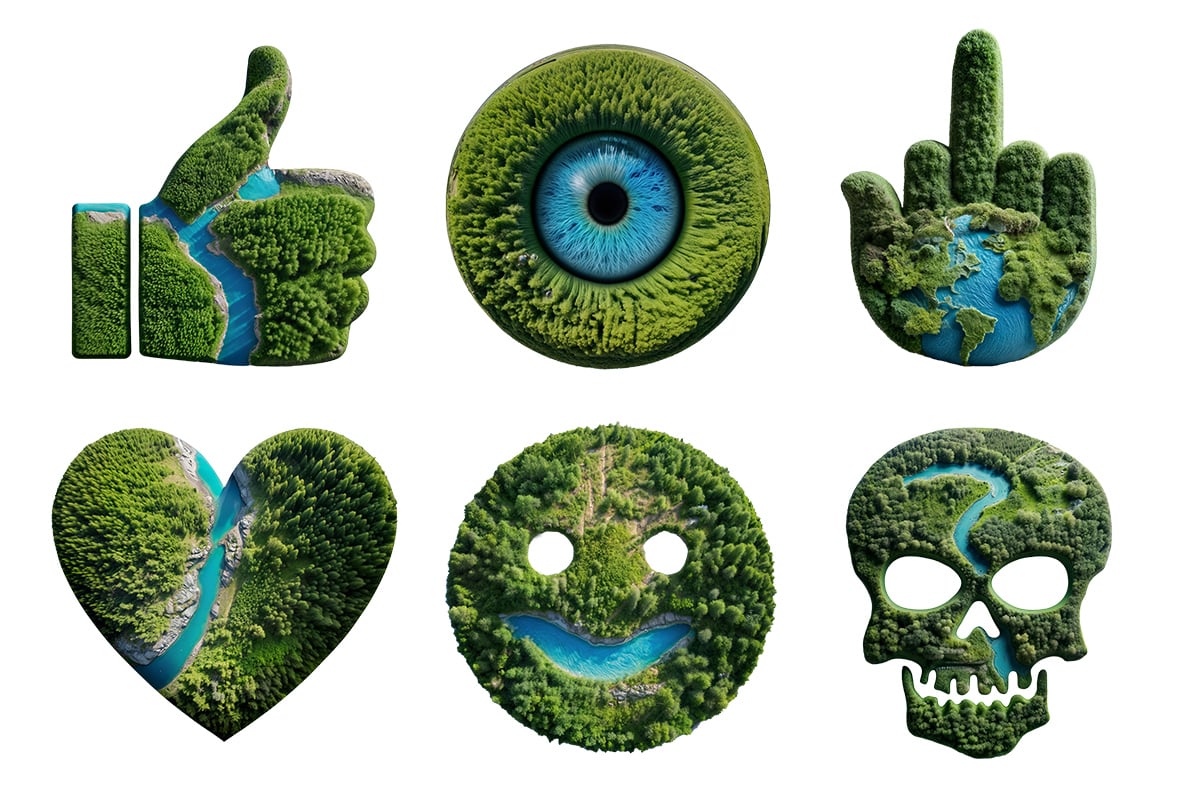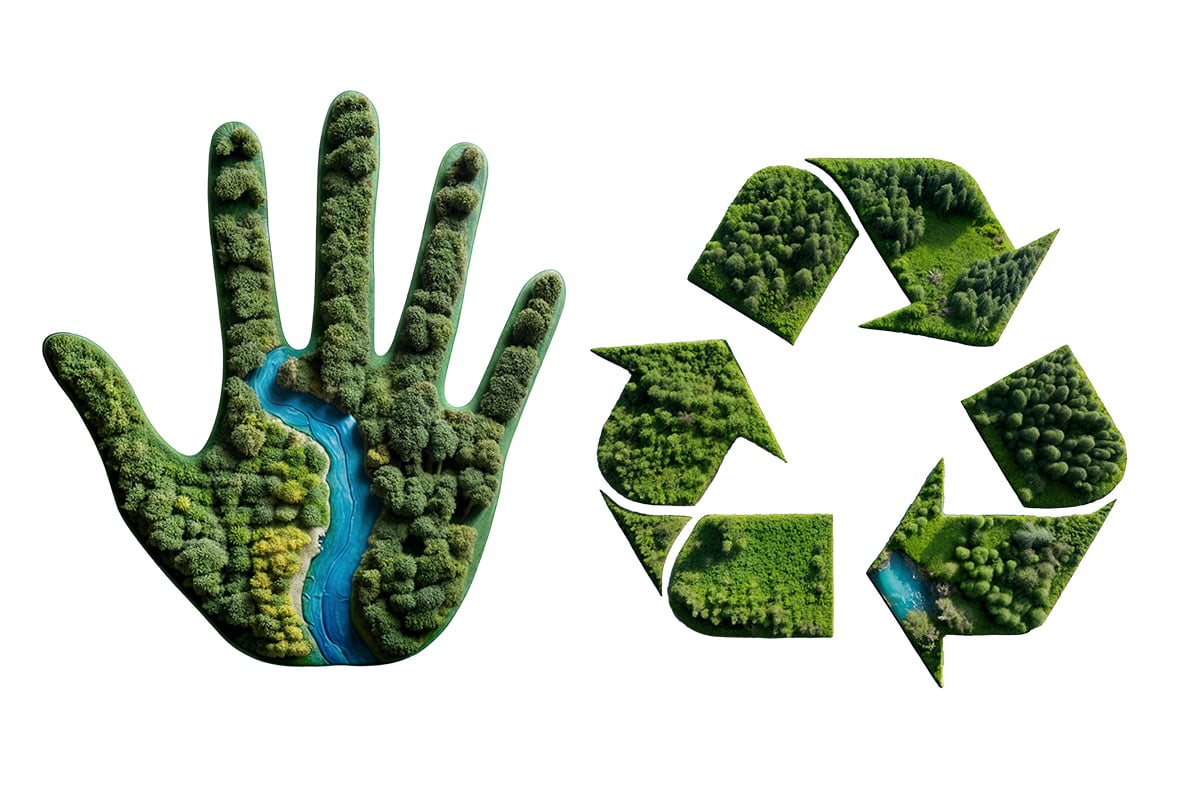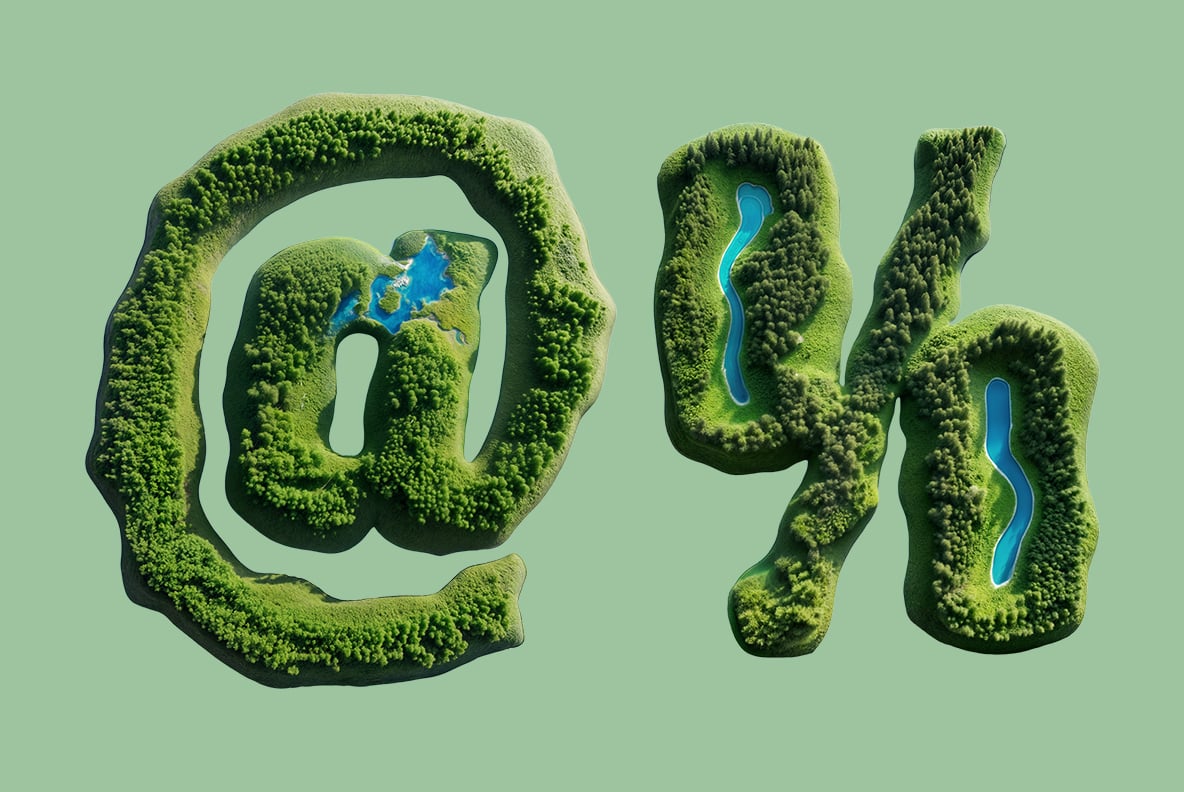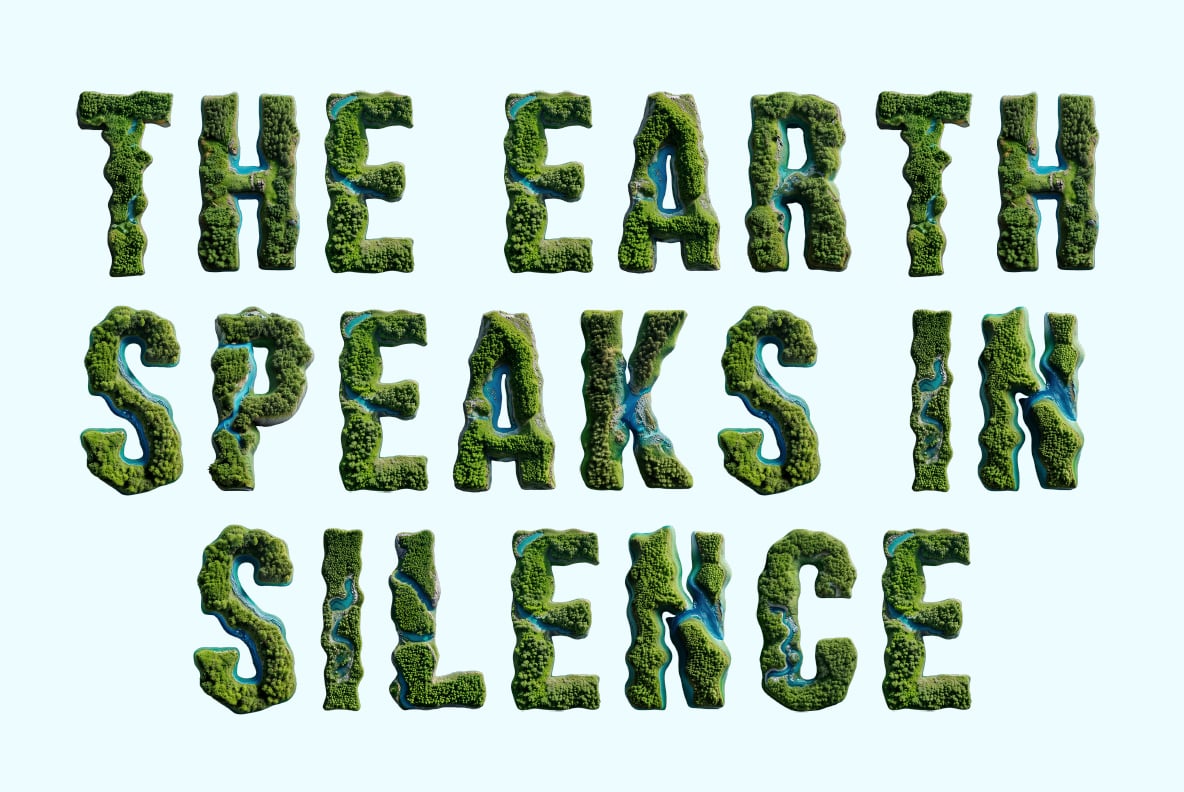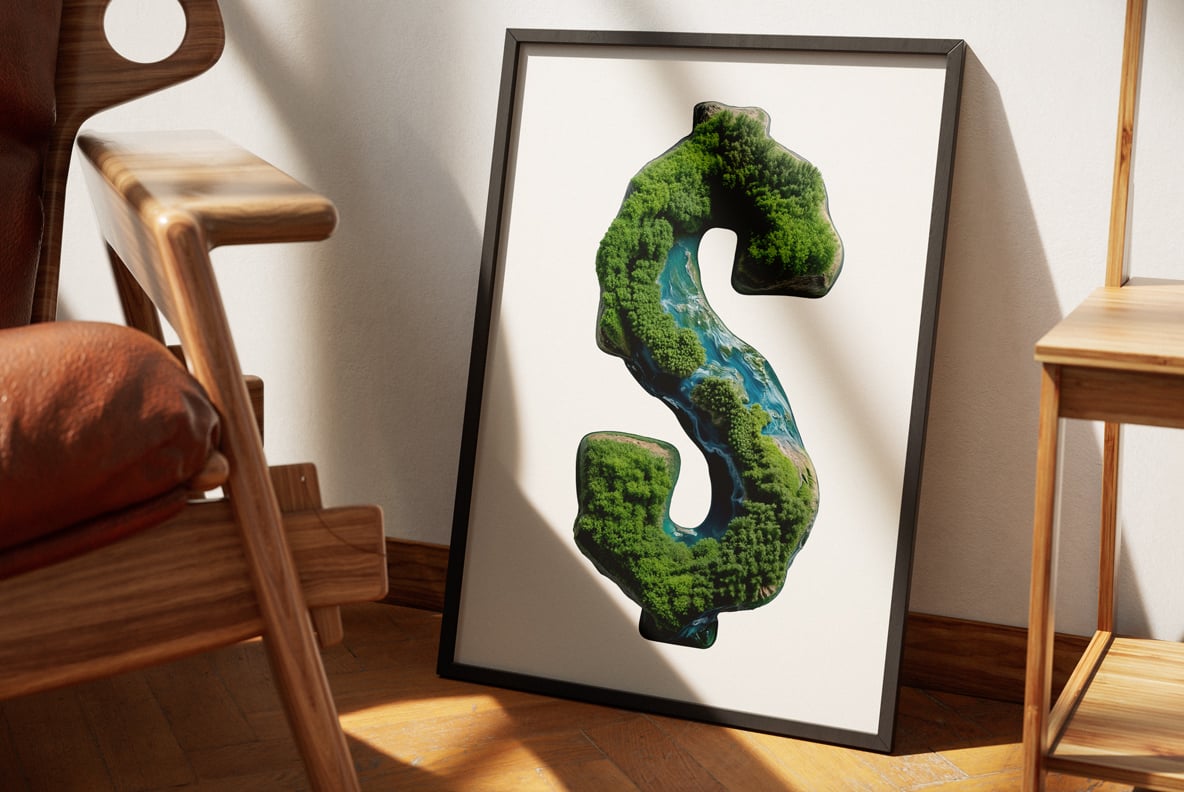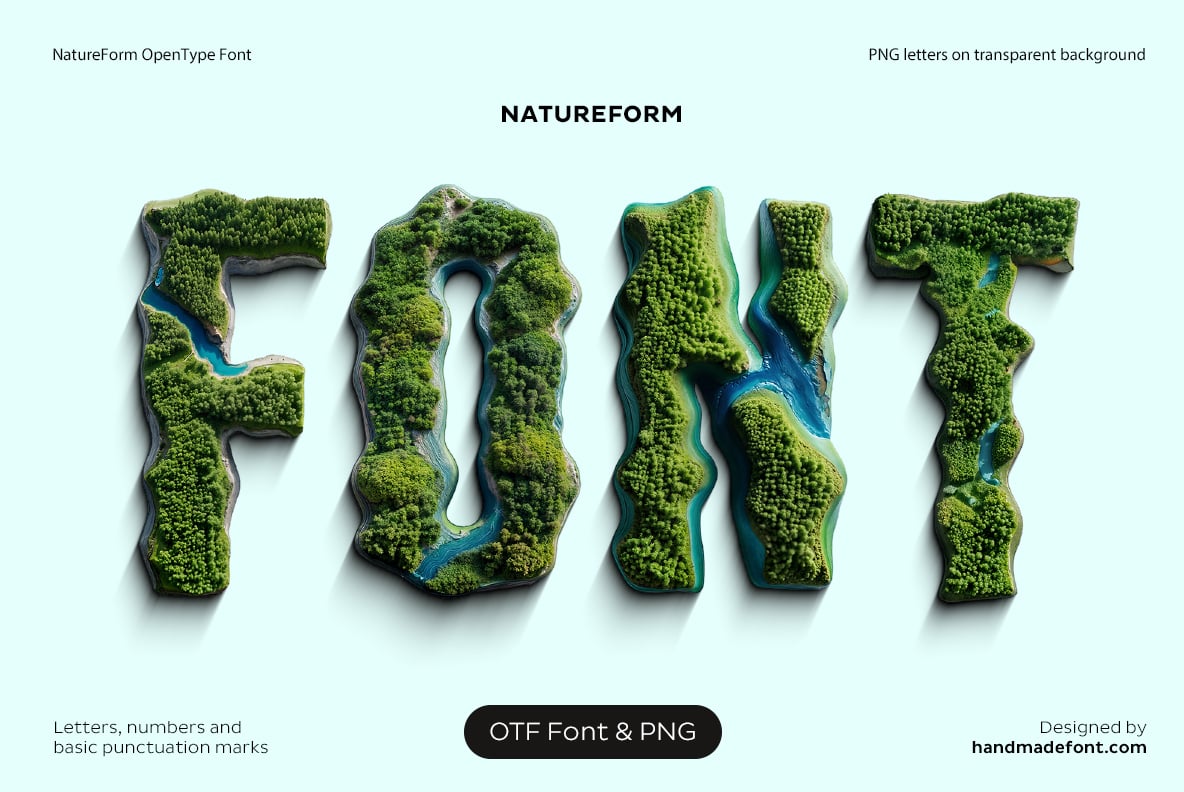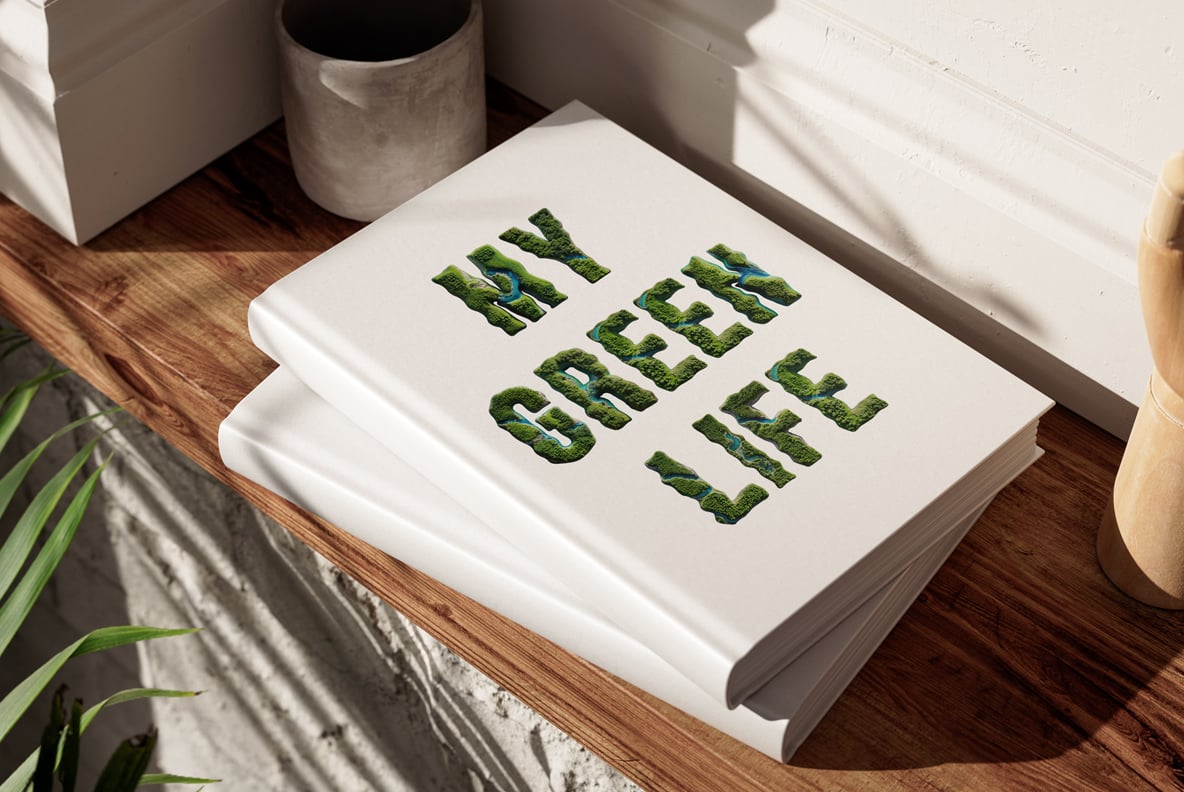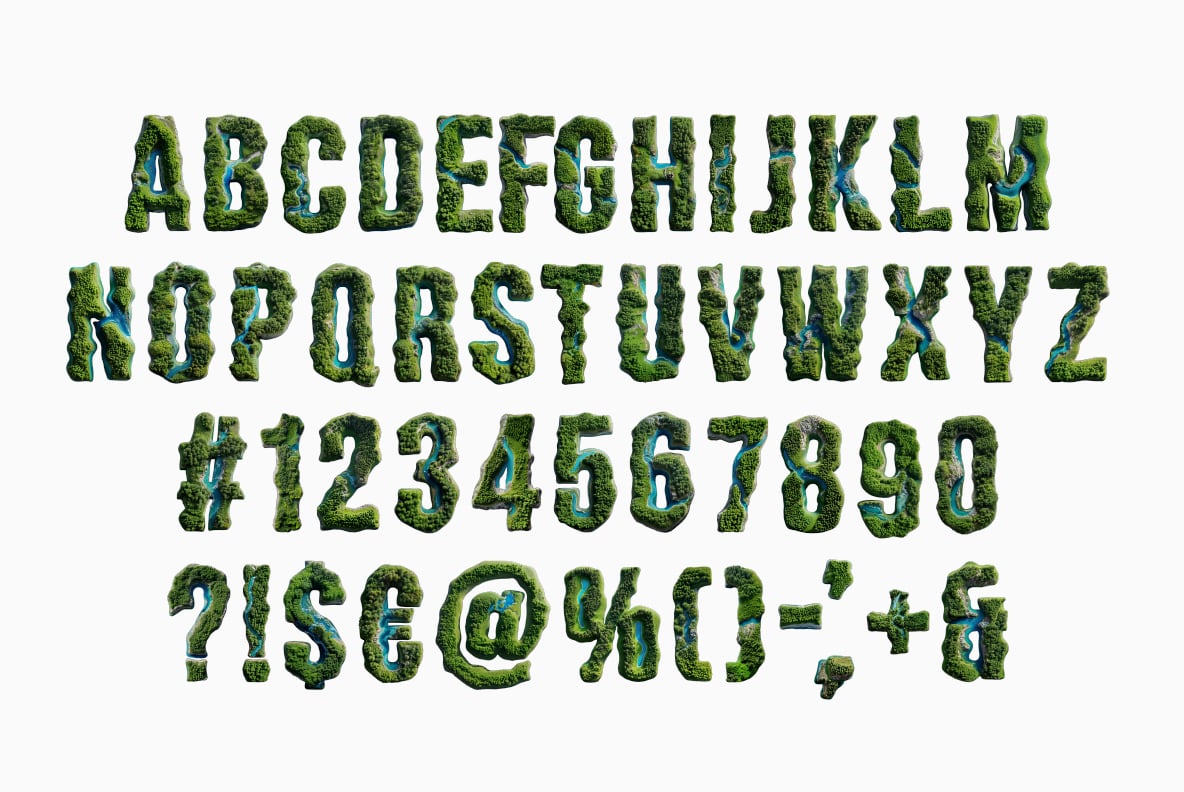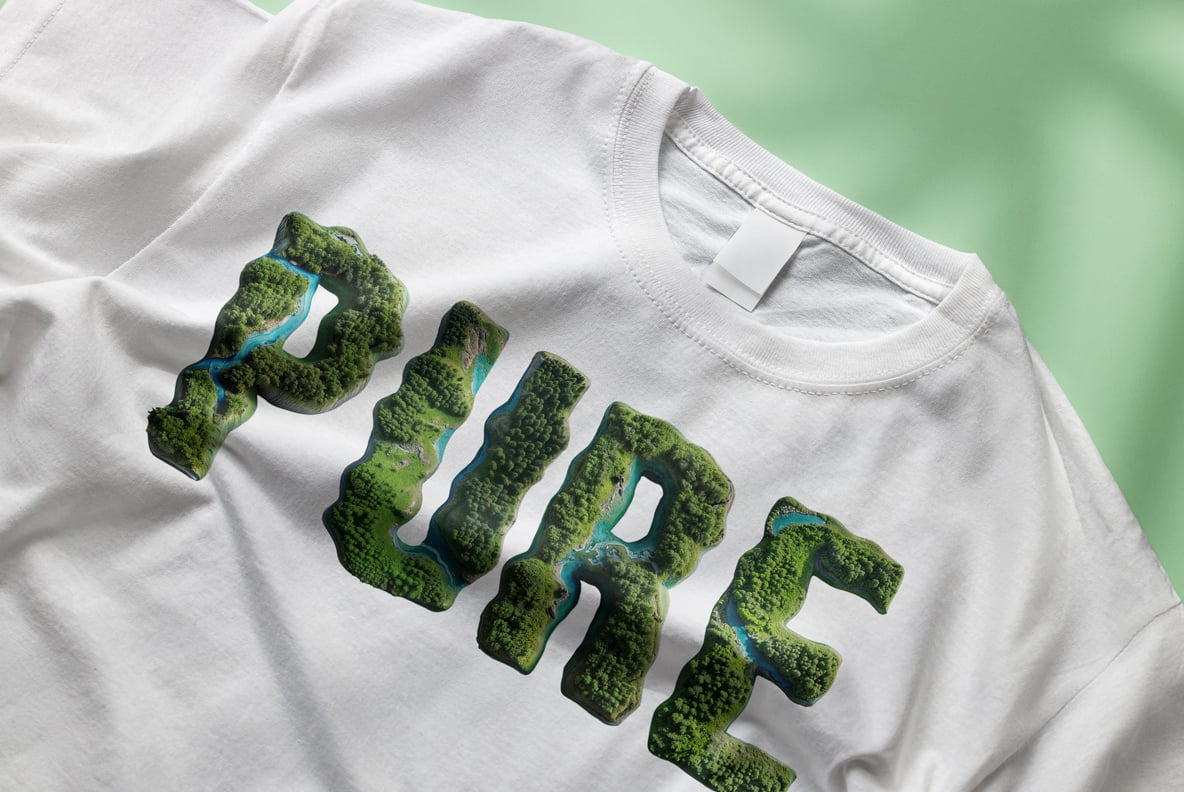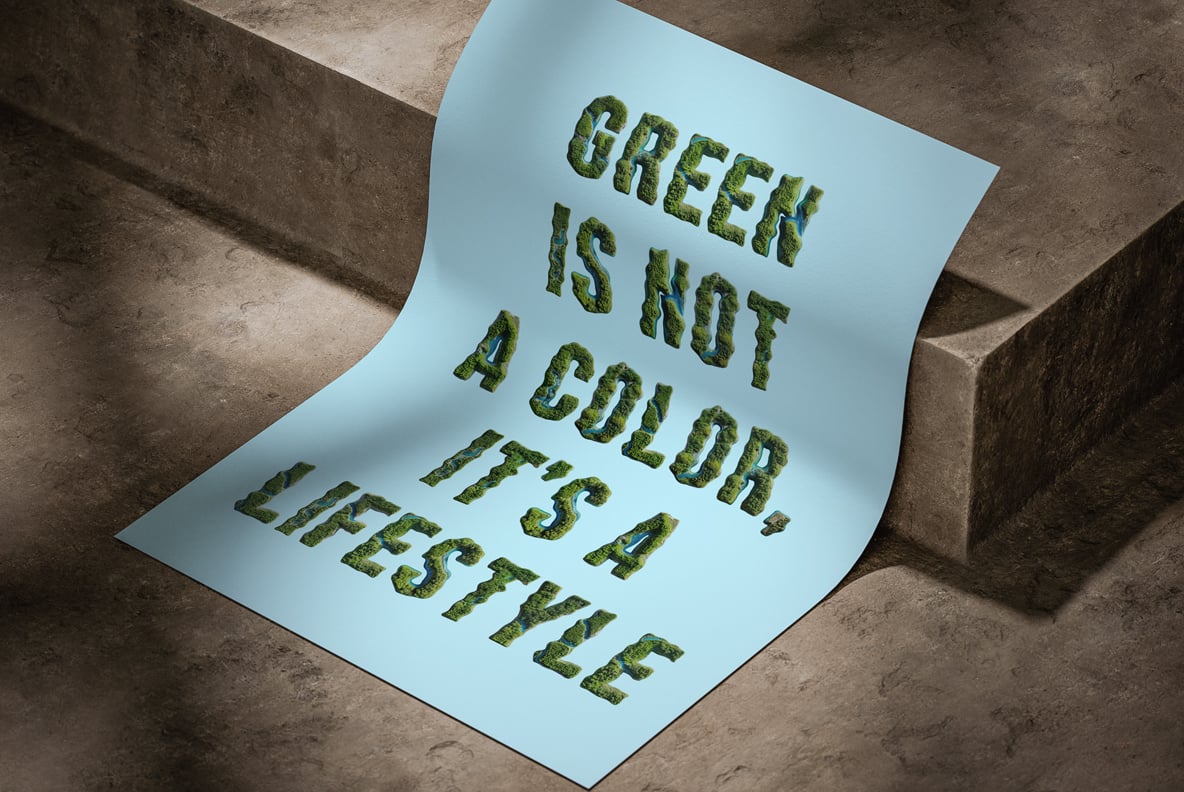
NatureForm Font
NatureForm Font is where typography meets the wild. Each character is a living sculpture—crafted from dense forests, crystal-blue rivers, and untouched terrain. It breathes green life, whispers ecology, and pulses with the rhythm of the earth. Letters aren’t just forms here—they’re miniature landscapes, rooted in purity and wrapped in the spirit of the organic. This is not just a font; it's a love letter to the planet. Perfect for brands that bloom with purpose, for voices that speak in leaves and light. NatureForm grows your message from soil to sky—bold, alive, and unforgettably pure.
A high definition OpenType Font. Contains uppercase characters, numerals and basic punctuation. (Draw height roughly 800 pixels). All letters and glyphs that comprises this font you can see on the preview.